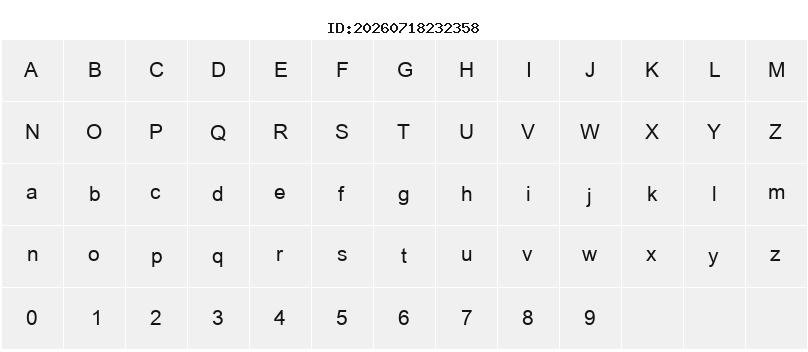
Cordia News Preview
• Font Name: Cordia News
• Full Font Name: Cordia News Bold
About Cordia News.ttf
Cordia News.ttf is a modern, elegant sans-serif font designed for ultimate readability and visual harmony. Perfect for branding, headlines, web design, and print materials.